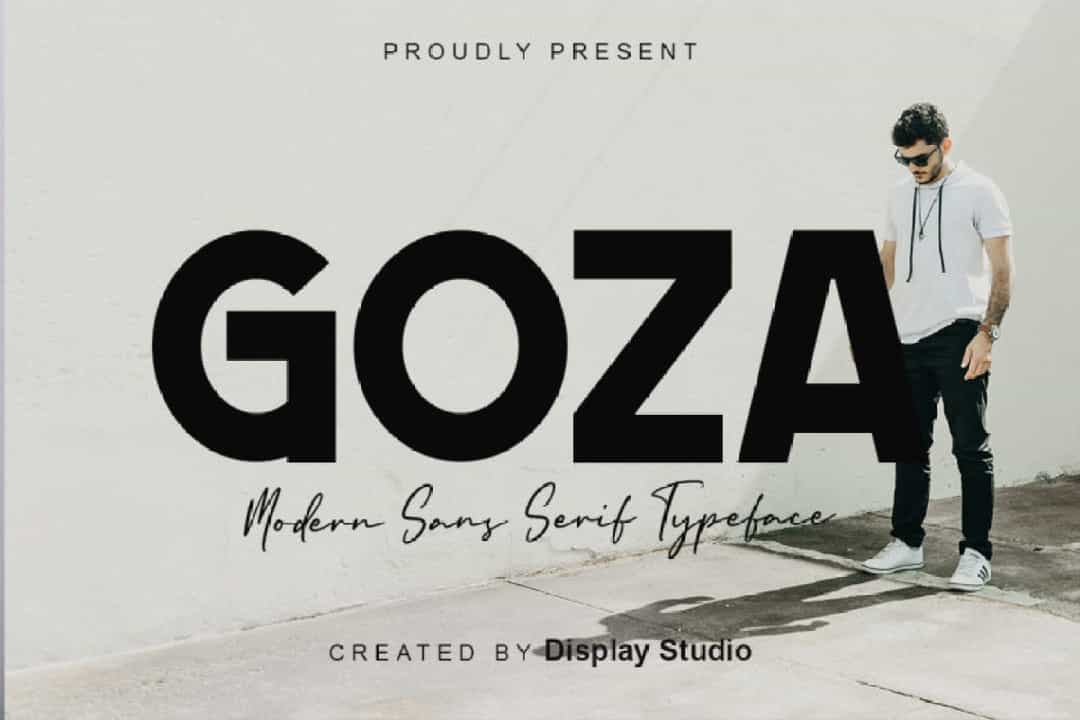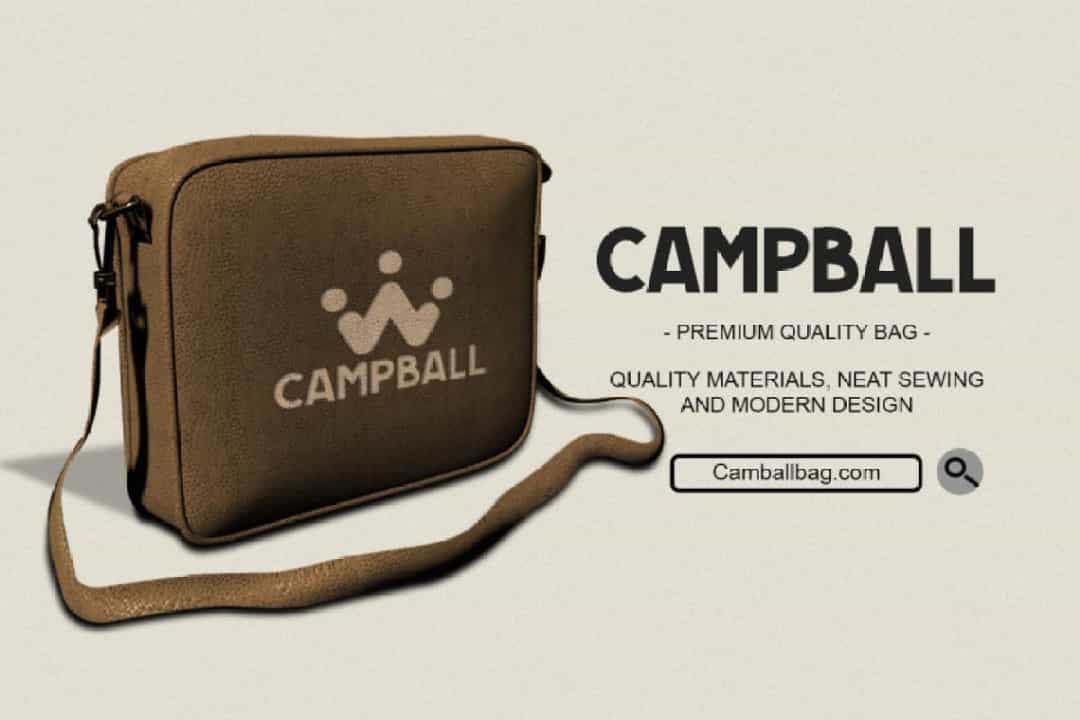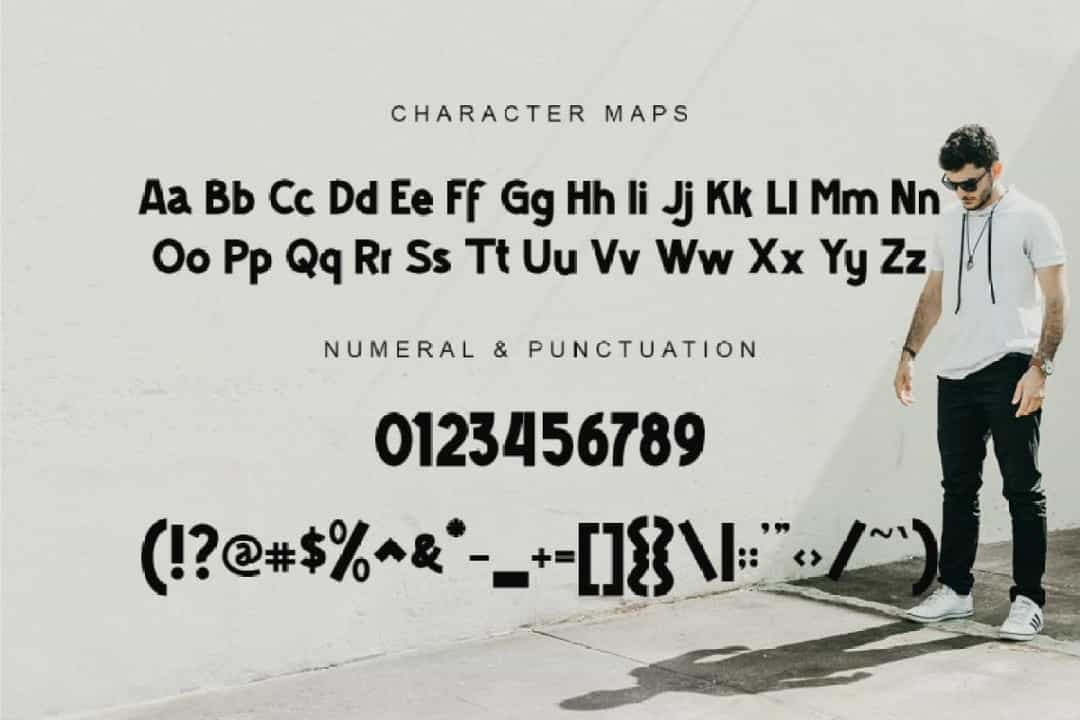
Discover Goza Font, part of the Sans Serif Display collection—a versatile and unique font perfect for adding a personal touch to your projects. Download it for free and enjoy crafting designs with style, from invitations to social media posts. This font is available exclusively for personal use, giving you the freedom to create without limits. Unlock your creativity with Goza Font today!
Goza Display Font is our latest offering! Ideal for branding invitations, greeting cards and any design work. Featuring multilingual support as well as variable styles to enhance any aesthetic you create with it.